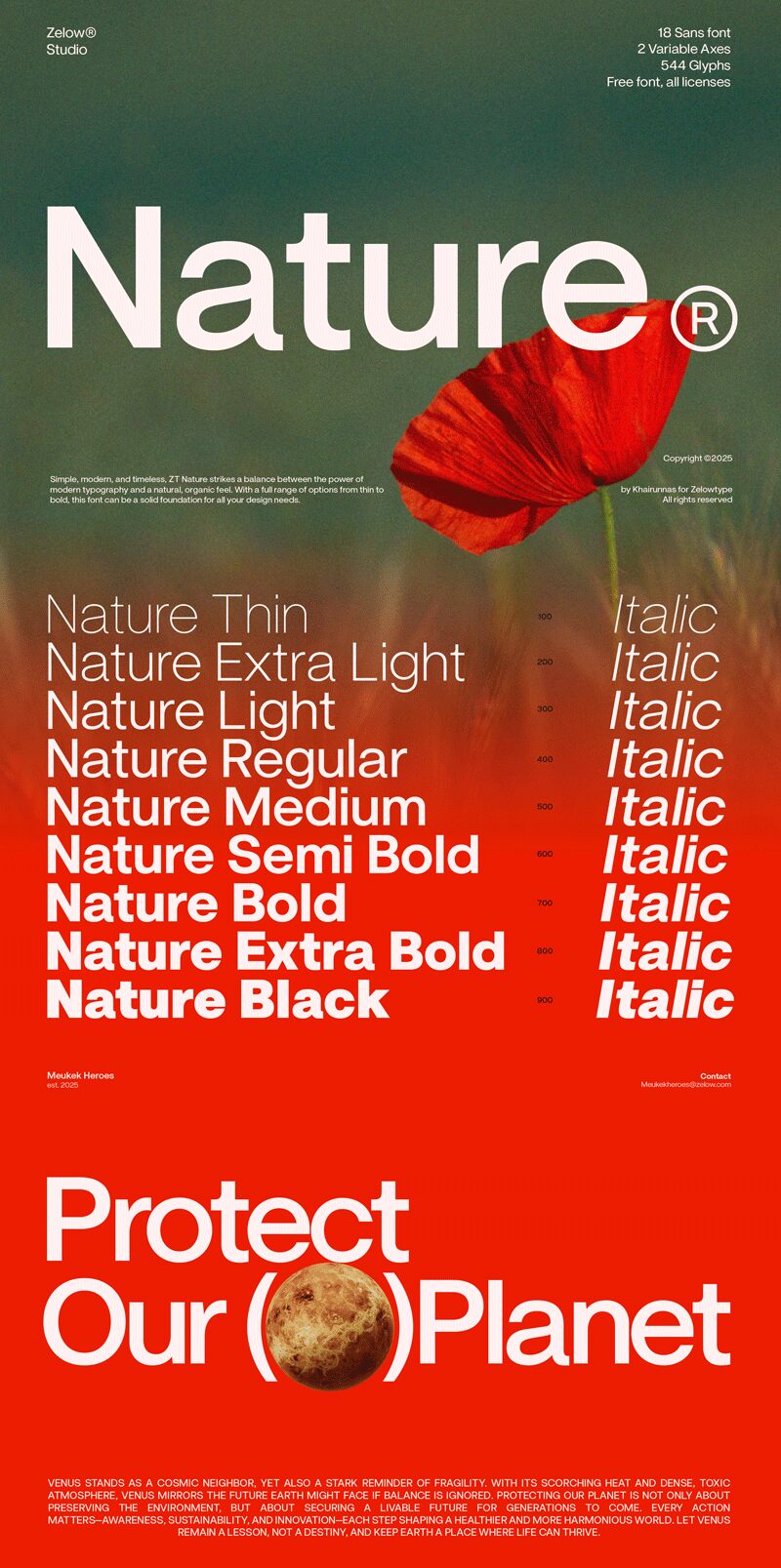
ZT Nature Medium
ZT Nature Medium font by Zelow Type is a free sans serif typeface that finds a calm, organic groove inside a clean geometric skeleton. Part of the ZT Nature family, its shapes feel sturdy yet humane—smooth corners, open counters, and even rhythm give text an easy, breathable flow. Weight is confident without shouting, so headings look crisp while longer lines stay pleasantly readable.
Using ZT Nature Medium, brand names and taglines land with assurance on eco packaging, wellness branding, outdoor gear catalogs, clean UI headers, event posters, signage, and pitch decks. The generous spacing and roundness soften hard grids and bring a friendly polish to modern layouts. For a simple pairing, set body copy in a warm book serif to complement this free font’s solid, balanced forms.